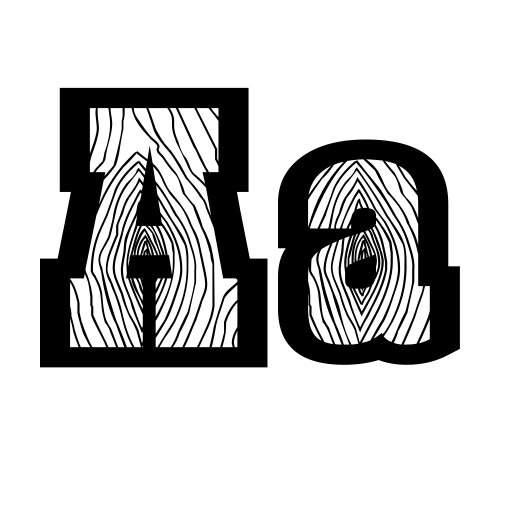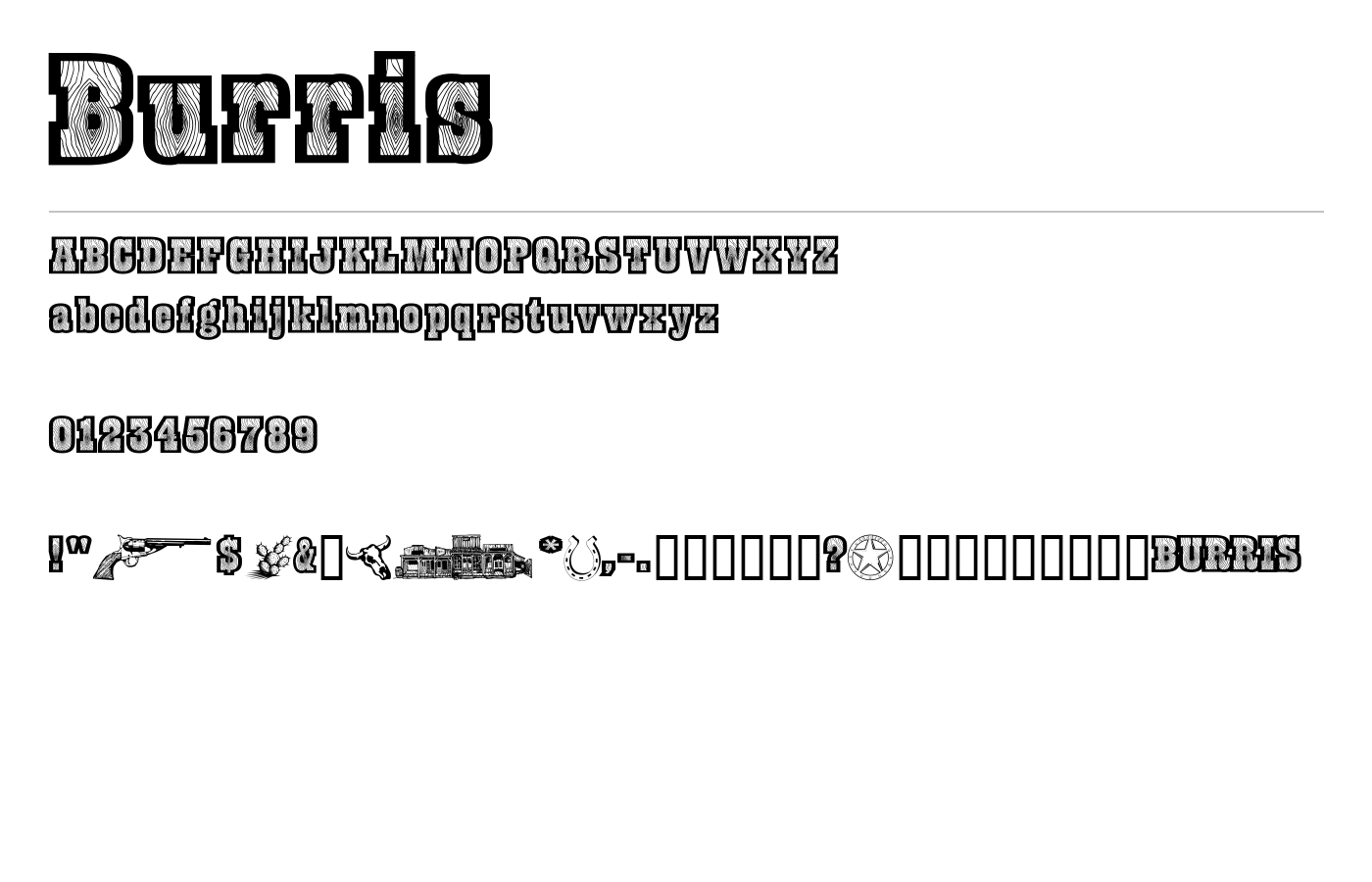
Burris is a bold, slab serif font with a strong Western-inspired character, featuring thick, blocky letterforms with distinct woodgrain texture and decorative elements that evoke a vintage, rustic feel. Its high contrast and detailed glyphs make it ideal for eye-catching headlines, posters, or branding that seeks to capture an old-time, adventurous mood. This font works best in creative projects where a rugged, nostalgic style is desired, such as themed designs or packaging with a historical or frontier vibe.
Burris Font
About Burris Font